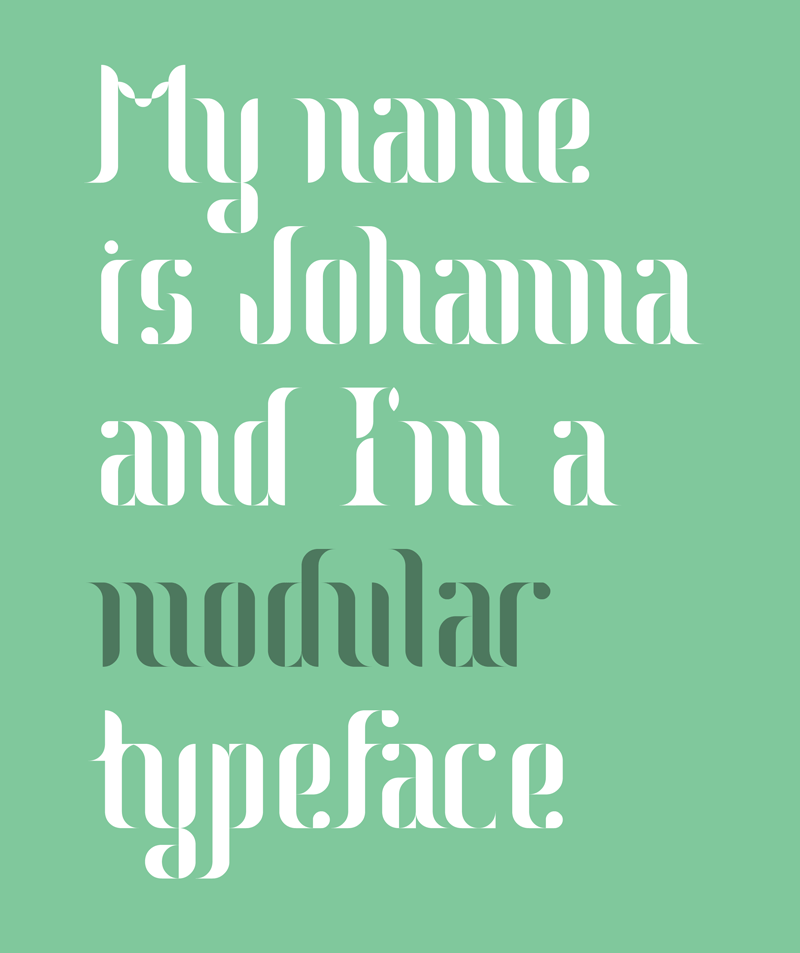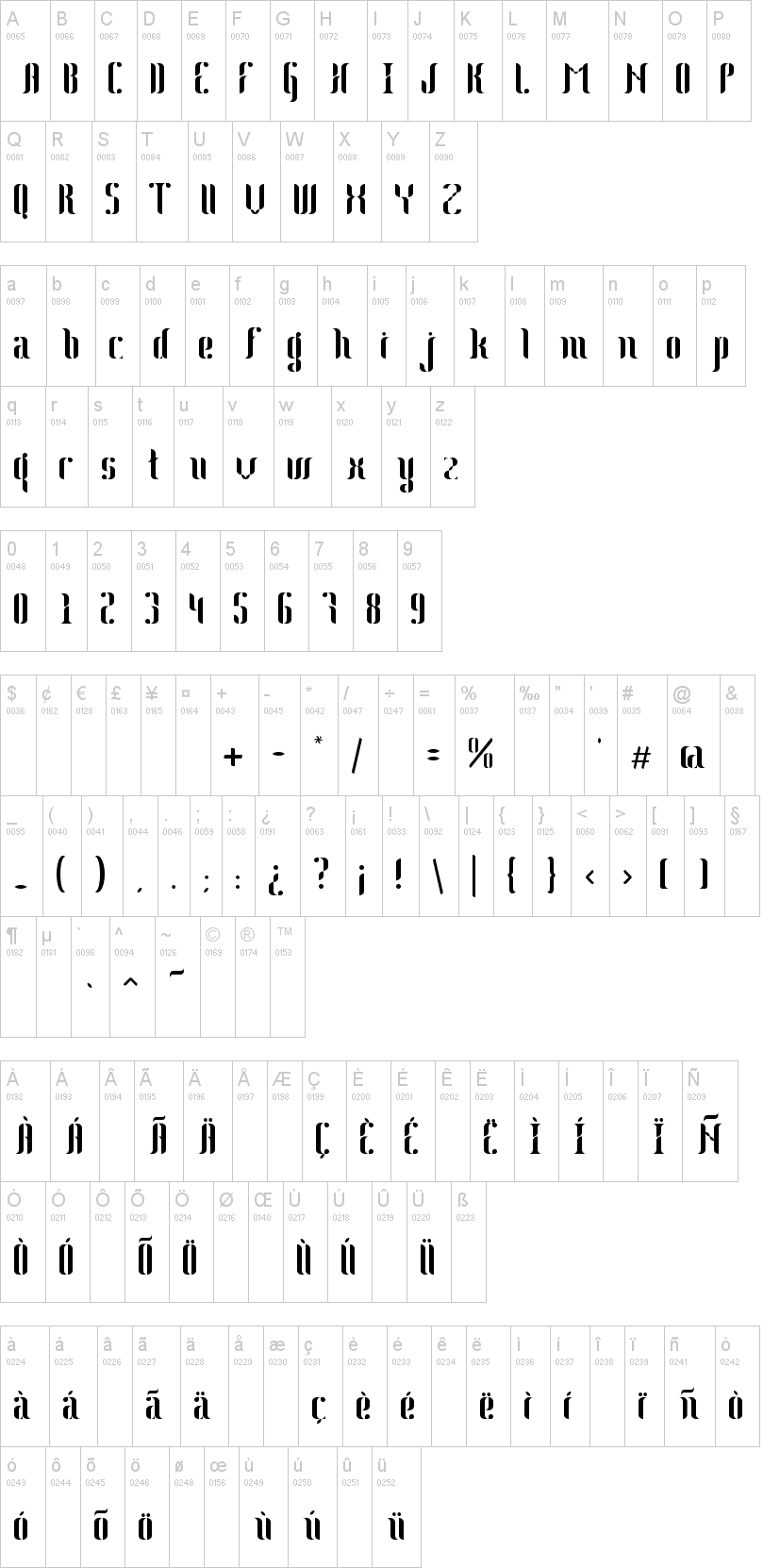
Johanna Italic.ttfNote of the authorJohanna & Johanna Italic are modular typefaces based on 6 basic modules. As a result, 147 glyphs of versatility in each style. Enjoy it for free